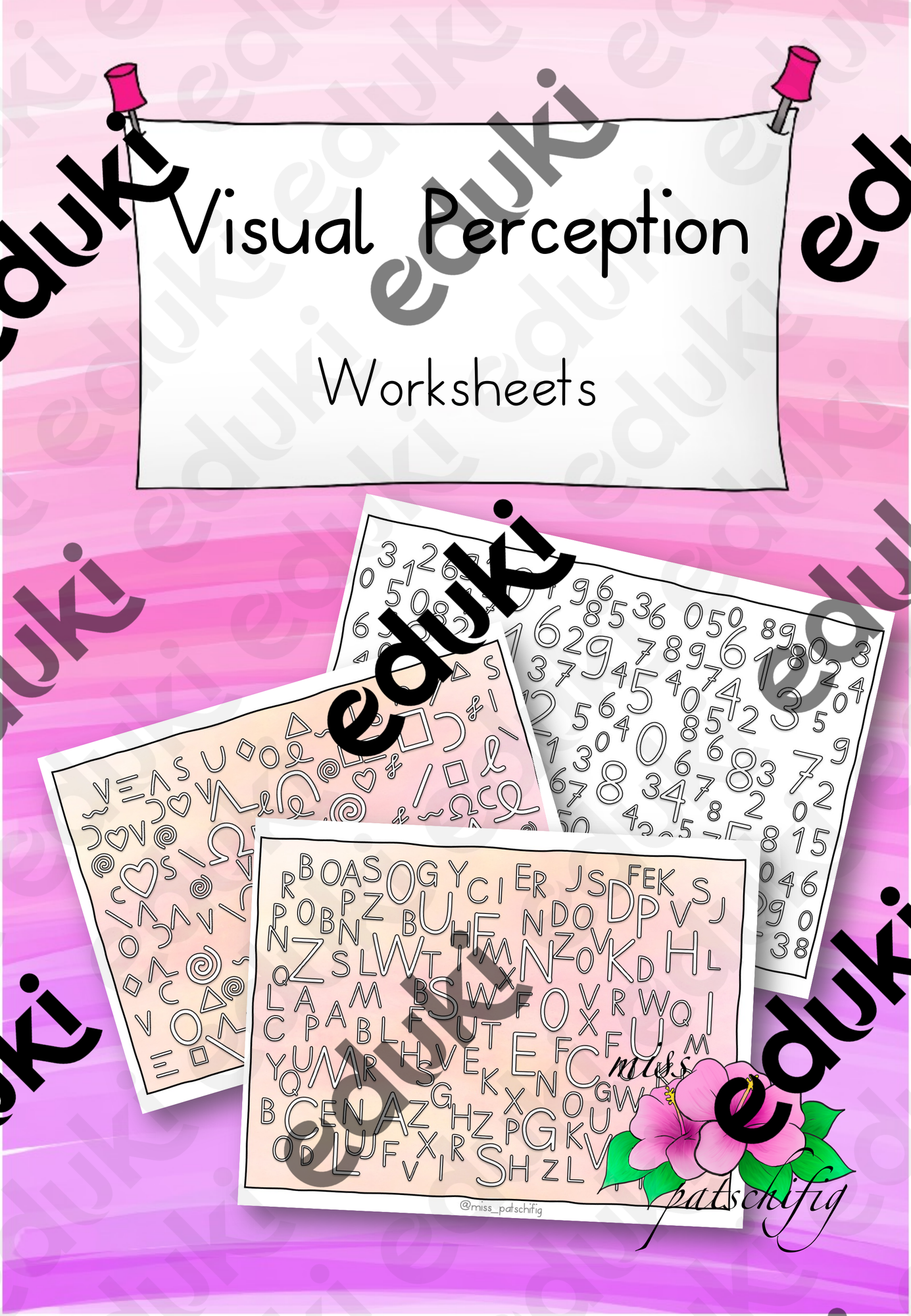
Polices de caractères - Funky 2 Font/Police de caractères - Miss Patschifig - Page de couverture
Font Funky 2
Use this funky font to create your own teaching material and worksheets. You can see the font on the cover. Please make sure you read the terms of use carefully.
Funky 2 Font/Police de caractères